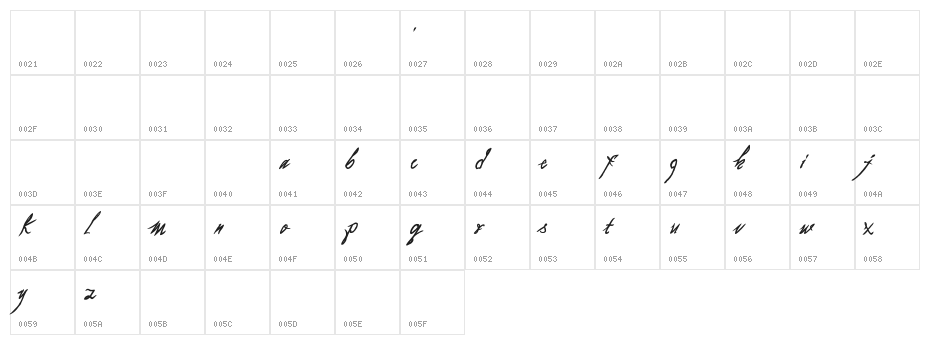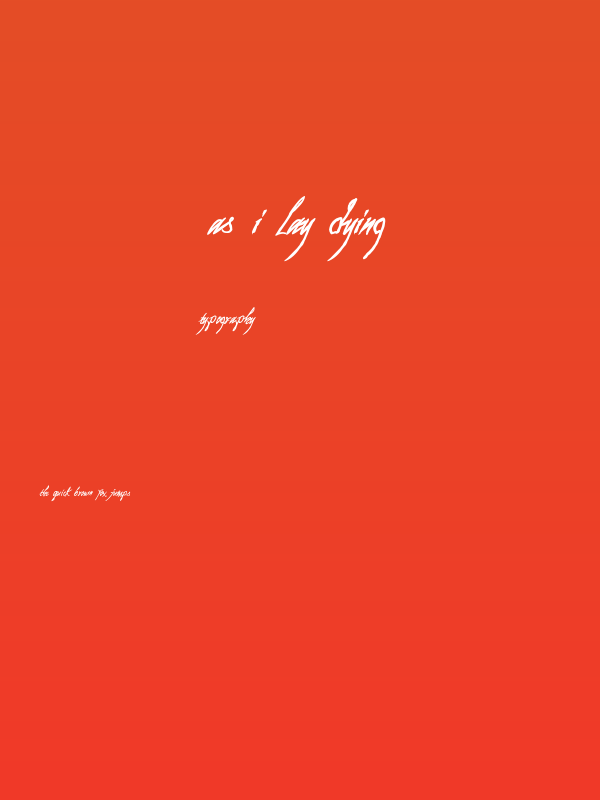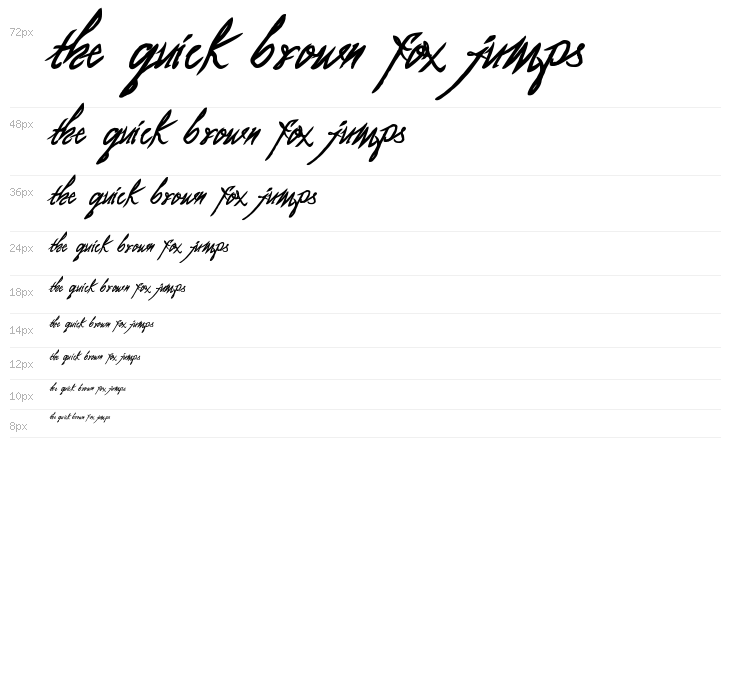
as i lay dying Font
as i lay dying Description
This font features a dynamic and expressive handwritten style, characterized by its fluid strokes and elegant curves. The letters are connected, giving it a cursive appearance that flows smoothly across the page. The strokes vary in thickness, adding a sense of movement and energy to the text. This font captures a sense of personal touch and creativity, making it suitable for projects that require a more intimate or artistic feel. Its unique style can add a distinctive flair to any design, making it stand out with its artistic and personal touch.
Overall StyleArtistic
Use CaseLogos, Invitations, Artistic projects
Proposed ProjectsIdeal for wedding invitations, greeting cards, personal branding, and artistic projects.